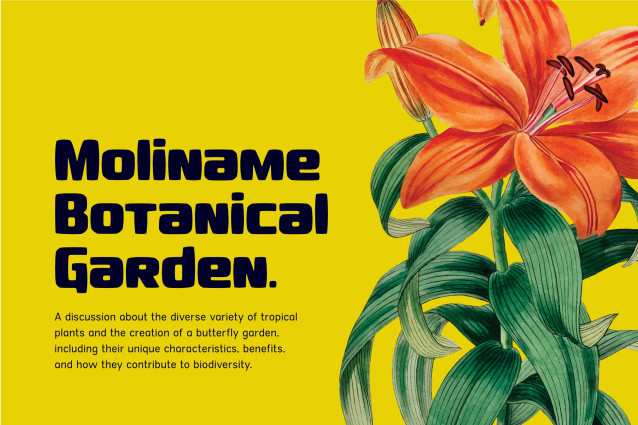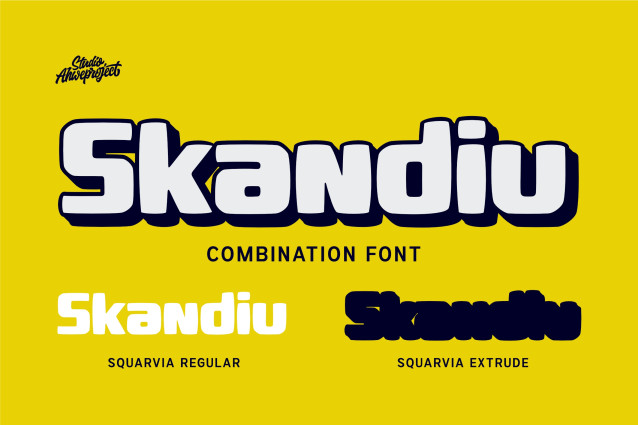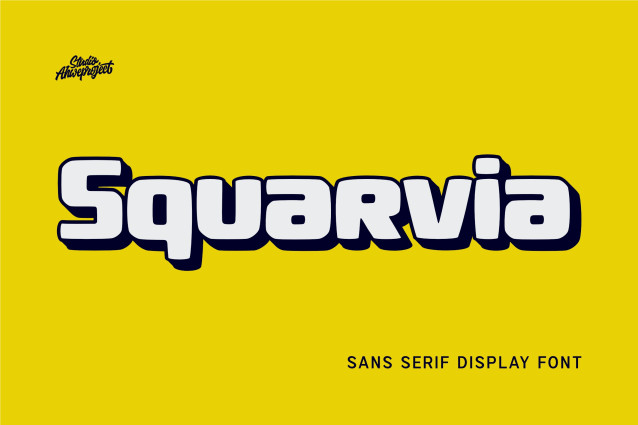
Squarvia is a bold and distinctive sans serif display font designed to make your typography impossible to ignore. Built with chunky geometric letterforms, wide proportions, and a strong squared structure, Squarvia delivers a modern personality with a playful and energetic edge.
Its solid construction gives every word a powerful visual presence, while the combination of strong corners and softer details keeps the typeface approachable and versatile. The result is a display font that feels bold, modern, sporty, friendly, and highly recognizable.
Squarvia is especially effective when typography needs to become the main focus of a design. Its strong silhouette makes it perfect for large headlines, logos, product packaging, posters, apparel, merchandise, social media graphics, thumbnails, album covers, food branding, beverage packaging, and many other creative projects.
The font can also adapt easily to different visual directions. Pair it with vibrant colors for a playful and youthful look, use monochrome combinations for a clean modern identity, or add outlines, shadows, and dimensional effects to create expressive retro, streetwear, sports, gaming, or pop-inspired typography.